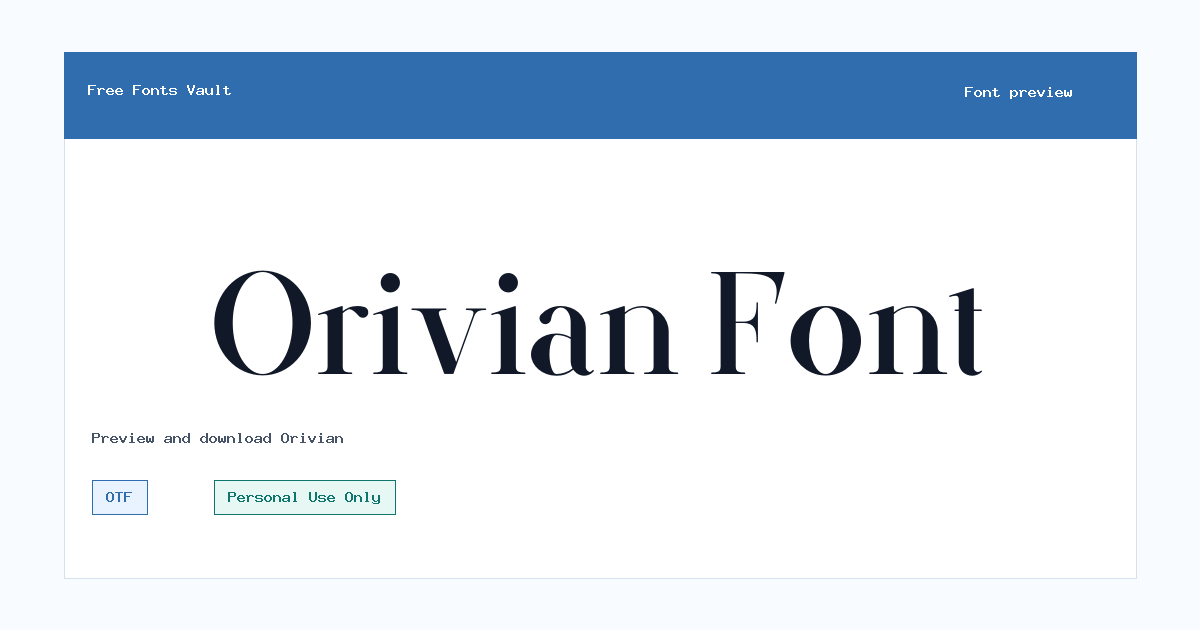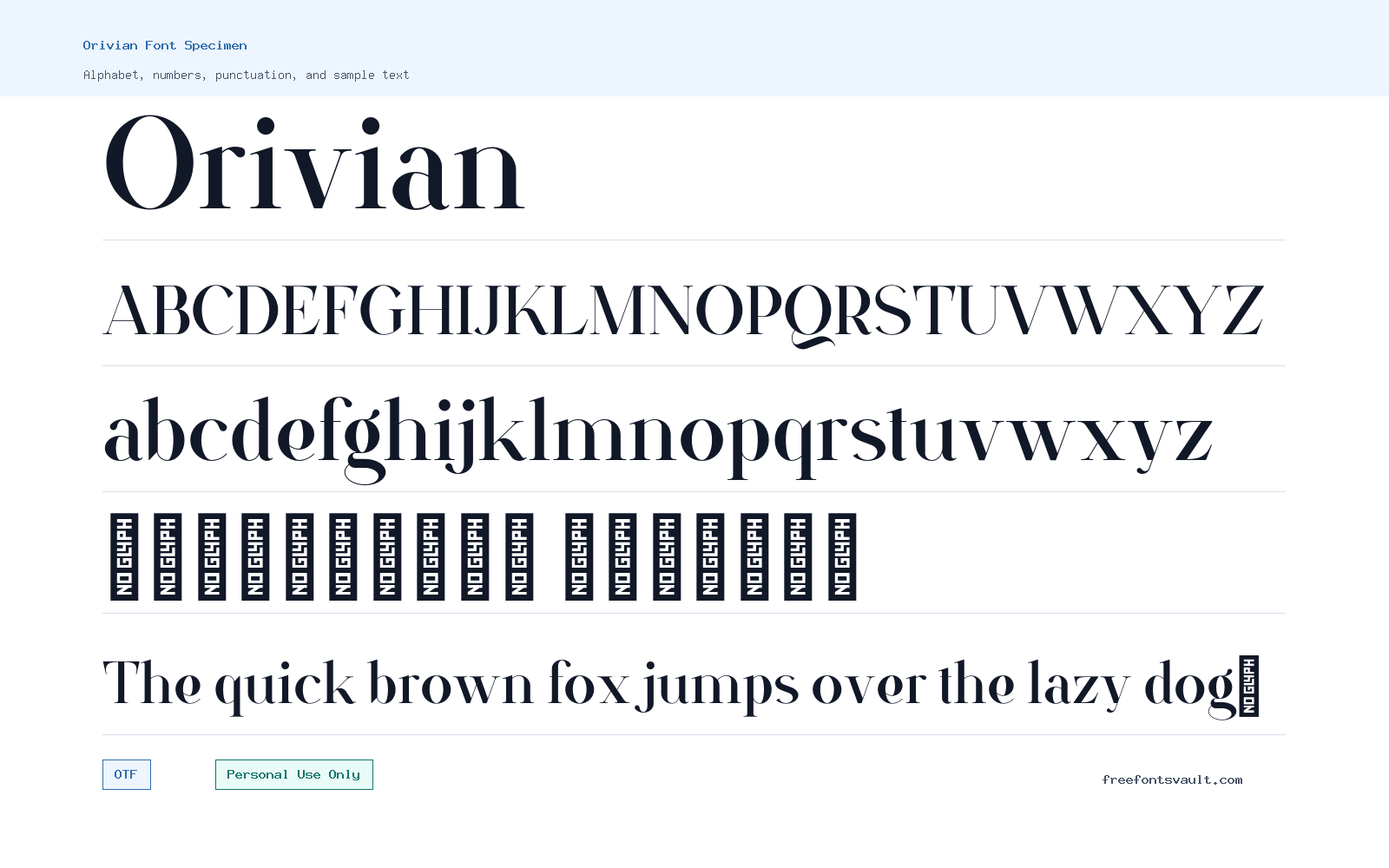
Orivian
Orivian is a serif display font with a regular OTF file for personal projects. It is best approached as a title and accent typeface: preview it with your own words, check the spacing at the size you need, and keep the Personal Use Only license in mind before using it beyond private work.
Orivian has the kind of serif structure that suits short, polished text rather than long paragraphs. Use it where the font can carry the mood without needing to work too hard: a name, a headline, a short invitation line, a mock logo, a quote graphic, or a cover-style title. Because only a regular weight is listed, the design is easiest to control when you keep the layout simple and let size, spacing, and contrast do the work instead of relying on bold or italic companions.
For a better preview, test Orivian with the exact text you plan to use. Serif display fonts can change character quickly between all caps, title case, and lowercase, so compare a few versions before downloading. Try short words, names with repeated letters, and punctuation if your design needs it. If the spacing feels tight in a headline, add a little tracking; if it feels too delicate at small sizes, reserve it for larger display use and choose a cleaner companion font for body copy. A quiet sans serif or a restrained text serif can help Orivian stand out without making the design feel crowded.
- Serif display feel suited to short, prominent text
- Personal title designs, quote graphics, invitations, and cover-style layouts
- Branding drafts, logo mockups, social images, and other short display settings
Use Orivian at larger sizes first, especially for headlines and names. Test uppercase, lowercase, spacing, and punctuation in the preview before downloading. For longer text, pair it with a simpler font and keep Orivian for emphasis.
What is Orivian best used for?
It is best for short display text such as titles, names, quote graphics, invitations, and personal design mockups. It is less practical for long body text unless testing shows it stays comfortable to read.
How should I pair Orivian with other fonts?
Pair it with a simple sans serif or a calm text serif. Keep the companion font neutral so Orivian can handle the decorative or headline role without competing for attention.